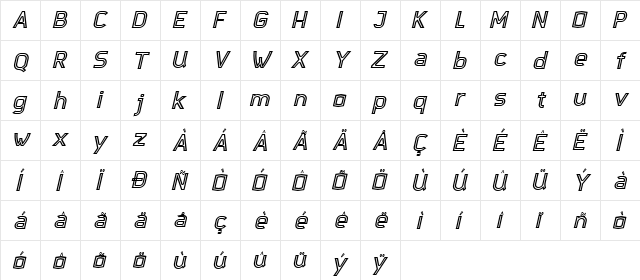
Djavaloca-Inline-DEMO Italic
| Designer | Galih Sulistya Aji |
Design Context for Djavaloca-Inline-DEMO Typeface
Djavaloca-Inline-DEMO is built around its visual character rather than neutral utility — its distinctive forms are designed to make an impression at display sizes. Its italic angle brings a sense of urgency and motion to the letterforms.
Font Pairing: Pair with a clean neutral sans-serif for body copy to let Djavaloca-Inline-DEMO's character lead without overwhelming the composition.
Pro Tip: Use Djavaloca-Inline-DEMO exclusively at display sizes — it was designed to be seen, not read at length. Let a neutral companion handle body copy.